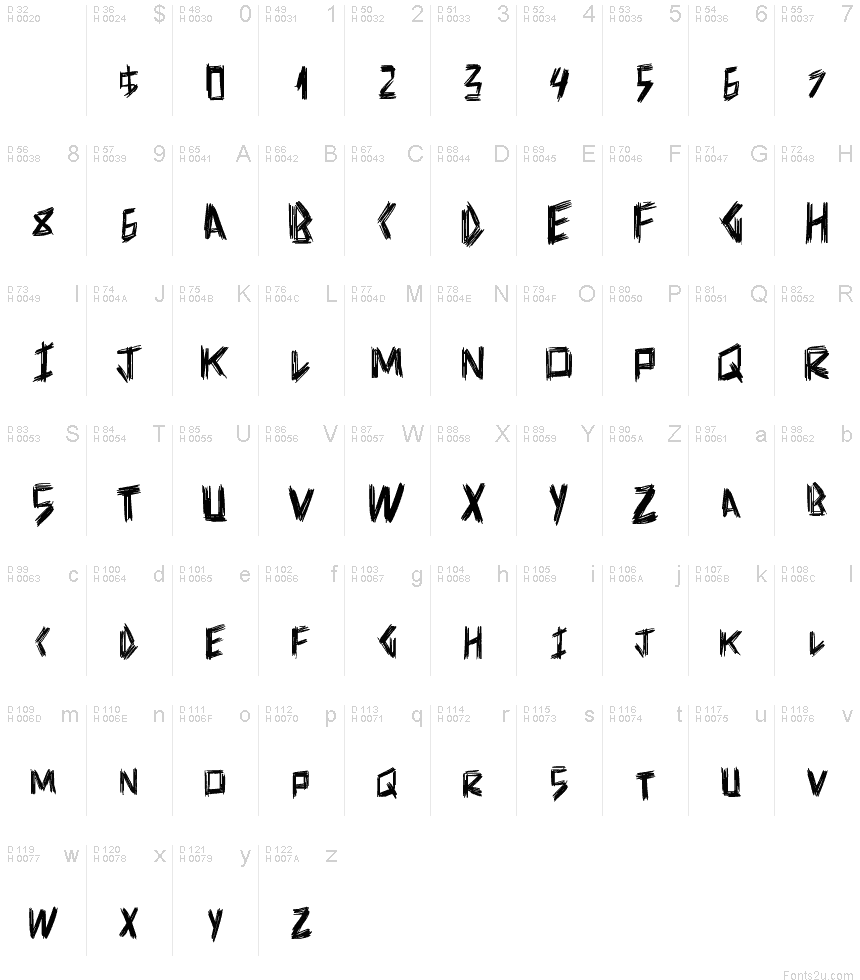
Doctor Scratch by Xerographer Fonts is a free trash script with ragged, scored strokes and an unruly hand-drawn silhouette. Letters shift in width and alignment, with sharp overlaps and stray marks scratched into place.
Underground music labels can use its abrasive lettering for album covers and merchandise. It also fits horror event posters and skate graphics, where the rough marks echo distressed artwork and photocopied textures. Album artwork is its strongest setting, especially for punk, noise, or industrial releases.